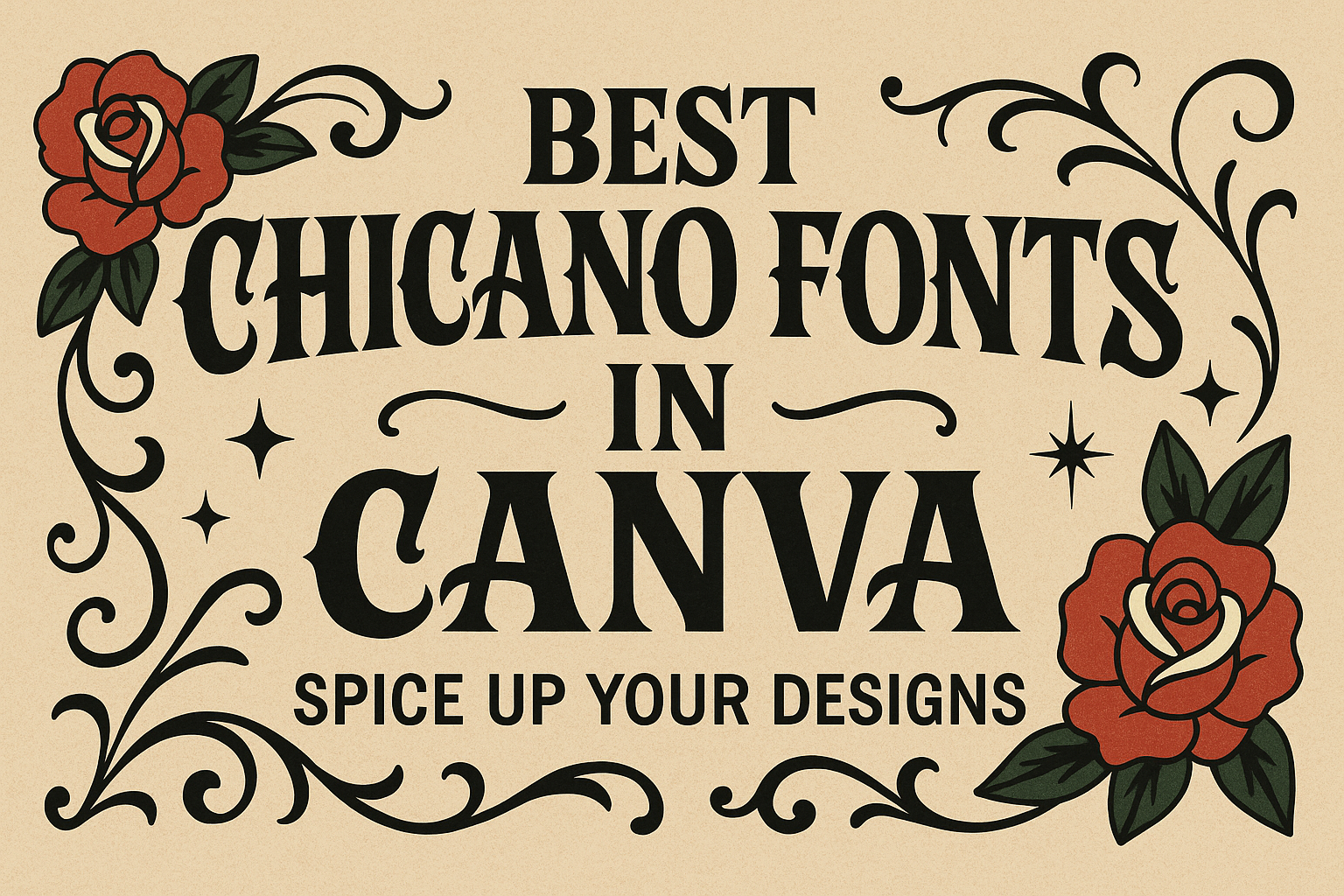
Best Chicano Fonts in Canva: Spice Up Your Designs
Finding the perfect Chicano font on Canva can elevate any design project, adding a touch of cultural flair and visual impact.
This collection of fonts, inspired by the vibrant and bold aesthetic of the Chicano art movement, offers a range of styles that cater to various creative needs.
By choosing the right Chicano font, designers can effectively capture the essence of this unique cultural influence.
For those interested in creating eye-catching tattoos or graffiti-style artwork, the intricate details in some Chicano fonts make them a top choice.
These fonts offer not just bold strokes but also delicate designs that can make any text stand out.
Canva users can explore different fonts like Obra Letra, which brings a vintage touch to modern designs by paying homage to traditional styles.
Whether you’re designing for a personal project or a professional presentation, Chicano fonts in Canva provide an authentic and appealing option.
They’re perfect for posters, invitations, branding, and more, while also preserving the cultural richness that inspires them.
Dive into a world of art and typography where heritage meets creativity, making your designs as memorable as the stories they tell.
Exploring Chicano Font Origins
Chicano fonts have deep roots in history and culture. These fonts reflect unique styles developed from Mexican-American artistic expressions and movements.
Historical Background
Chicano fonts originate from the Chicano Movement, which emerged in the 1960s in the United States. This movement was marked by a strong desire for civil rights, identity, and empowerment among Mexican-Americans.
Artists in this period created murals and graffiti that incorporated unique lettering styles.
These styles often featured bold, intricate designs that have now evolved into what we recognize as Chicano fonts. They came to symbolize a proud celebration of heritage and cultural resistance, using art as a way to communicate messages around social justice and identity.
Cultural Significance
The Chicano Movement was not just political; it was a cultural renaissance. Fonts that developed during this period became potent symbols of the Mexican-American identity.
They are often used in tattoos, murals, and posters to express pride and connection to community and history.
Today, Chicano fonts are seen in various creative domains. They capture the essence of resilience and cultural pride, showcasing distinctive flair that is both artistic and meaningful.
These fonts continue to inspire artists and designers, bridging the gap between tradition and contemporary design practices seen in platforms like Canva.
Fonts like Obra Letra can be good choices, noted for their vintage display style, reminiscent of Filipino literature.
If the desired font doesn’t appear, try browsing Canva’s collection of available fonts.
Sometimes it helps to explore different fonts that match the Chicano style, even if they aren’t labeled as such.
For those who need alternative fonts, exploring font equivalents can help. This involves finding similar fonts with the same flair and style as Chicano designs.
Finally, don’t forget to make use of Canva’s search bar. Typing in what you need can often yield quick results.
This makes finding and using Chicano fonts an easy experience for anyone wanting to add a touch of cultural style to their designs.
Popular Chicano Fonts on Canva
Chicano fonts on Canva offer unique styles, blending tradition and modern design. These fonts often reflect bold aesthetics and cultural identity. Below is an exploration of three popular styles: sharp, script, and graffiti-inspired fonts.
Sharp Style Chicano Fonts
Sharp style Chicano fonts distinguish themselves with their bold and assertive lines. Obra Letra, for instance, stands out as a vintage display typeface. This serif font is notable for its strong letterforms and intricate decorative details that convey heritage and personality.
It is ideal for projects that require a strong visual impact, like posters or logos. Such fonts provide designs with authority, ensuring they capture attention easily.
With Canva, adding text effects such as shadows or outlines is simple. These effects can add depth and dimension to any design, making the text more eye-catching.